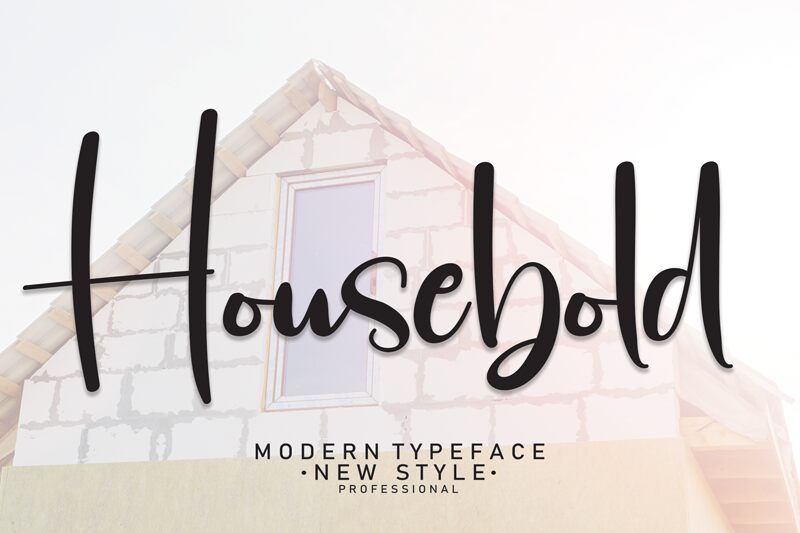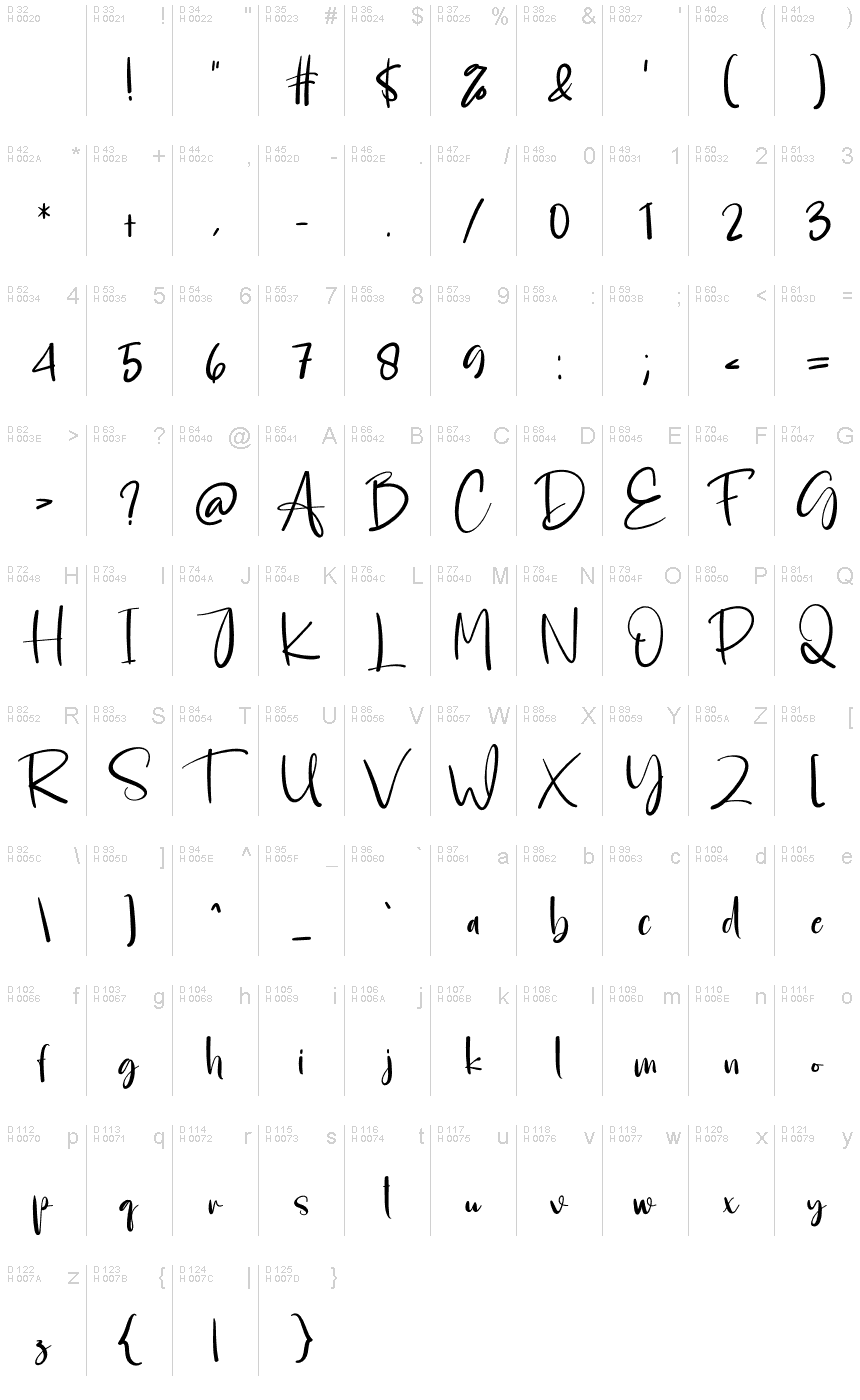
Housebold
Housebold, designed by Scratchones, stands out with its distinct handwritten style and semi-light weight that exudes a personal touch. The font's aesthetic is characterized by fluid, organic strokes that mimic the nuances of human handwriting, bringing an authentic and engaging narrative to any project. Its elegance lies in the natural variation of line thickness and the subtle playfulness of its curves.
The semi-light weight of Housebold strikes a balance between readability and artistic flair. This makes it remarkably versatile for various creative endeavors, from branding projects that require a signature look to editorial designs where personality is paramount.
With its blend of sophistication and warmth, Housebold is poised to add character to invitations, personalized stationery, or any design space that calls for a bespoke feel. Its unique traits ensure it stands out in digital landscapes while maintaining the intimacy of something crafted by hand.